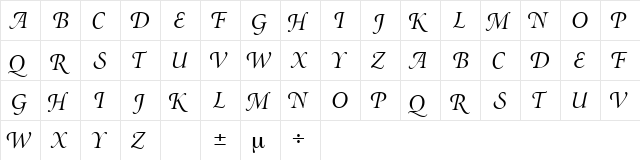
AtlantixSwashDisplayCapsSSK Italic
Design Context for AtlantixSwashDisplayCapsSSK Typeface
AtlantixSwashDisplayCapsSSK flows with the natural rhythm of handwritten lettering, making it ideal for designs that call for warmth and personal expression.
Font Pairing: Combine AtlantixSwashDisplayCapsSSK with a simple geometric sans for maximum contrast — the tension between flowing curves and clean structure is a classic typographic pairing.
Pro Tip: Use AtlantixSwashDisplayCapsSSK for short runs of text — names, titles, or taglines. Extended body copy in script faces tires the eye quickly.